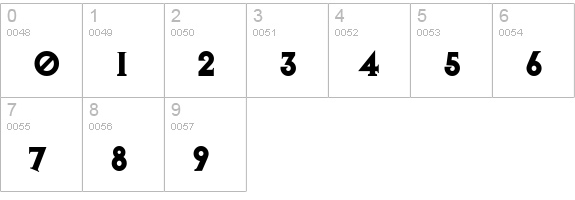
Exocet Heavy is a heavy, high-impact variant in the Exocet typeface family \xE2\x80\x94 well suited to high-impact headlines, posters, and display advertising.
Exocet Heavy font is a bold and impactful typeface that demands attention with its strong, geometric design. Featuring sharp angles and a modern aesthetic, this font is perfect for making a statement in your designs. Whether you're looking to create eye-catching headlines or striking logos, Exocet Heavy has you covered. Best of all, Exocet Heavy font is available for free download at FontsMarket.com. This means you can easily access this high-quality font without any cost, making it a fantastic choice for both personal and commercial projects. Don't miss out on the opportunity to add Exocet Heavy to your font collection today!